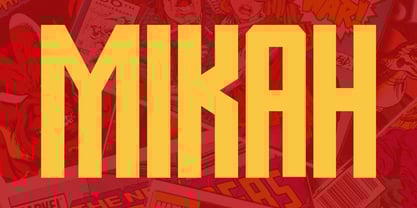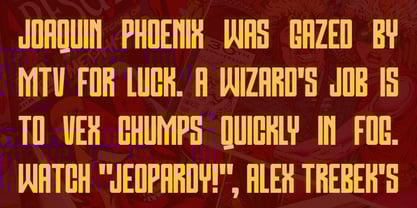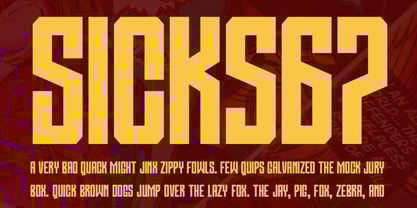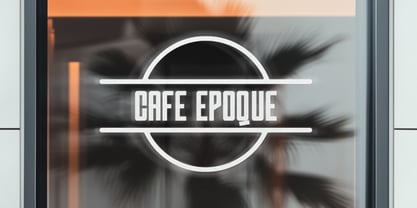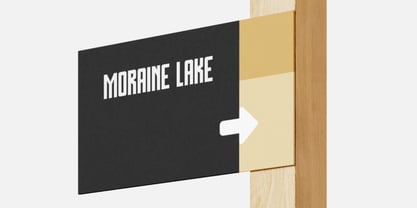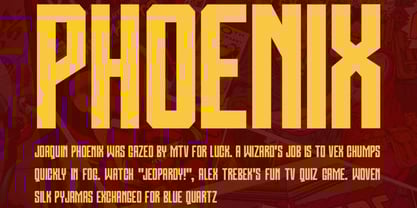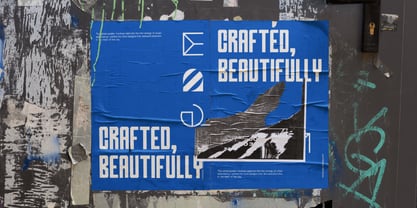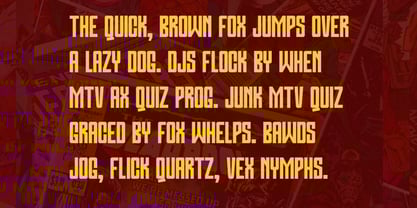
Mikah Display
by Webhance
The Mikah Display Font Family was designed by Ancy George and published by Webhance. Mikah Display contains 2 styles and family package options. More about this family
Mikah Display Font Display is a futuristic geometric typeface made for designers who love bold, modern design. Each letter is shaped with clean angles, perfect curves, and smooth geometry. Inspired by cosmic art and modern structure, this typeface gives your text a unique, futuristic look. It’s perfect for strong headlines, creative posters, or digital designs that need a modern edge. Designed by Webhance Studio, this font blends creativity and function. Its solid shapes and balanced structure work beautifully in branding, packaging, or sci-fi projects. The sharp details and clear forms bring a confident and stylish tone to any design. Whether you’re working on print or screen, Mikah Display Font Display keeps your message crisp and powerful.
Designers: Ancy George
Foundry: Webhance